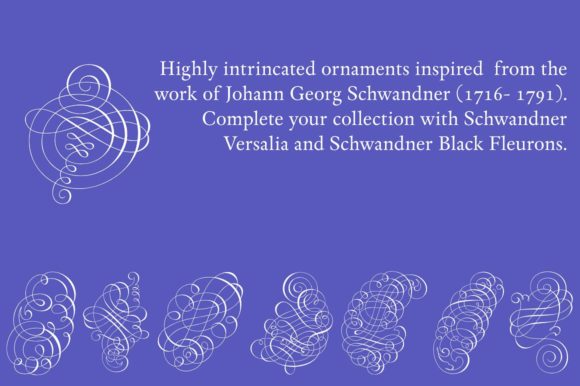
Introduction to Schwandner Ornaments Font Font
Fonts play a crucial role in design, and the Schwandner Ornaments Font font is a typeface that brings both character and versatility to any project. Whether you’re working on a branding project, a website, or a print design, the Schwandner Ornaments Font font offers a unique style that can elevate your work.
The Schwandner Ornaments is a highly intrincated set of ornaments inspired from the work of Johann Georg Schwandner (1716-1791).
An accurate historical revival and interpretation of Iza W, at Intellecta Design State-of-art to use in headings, chapter initials from books, magazines and other publications.
Key Features of Schwandner Ornaments Font Font
Why Choose Schwandner Ornaments Font Font?
The Schwandner Ornaments Font font is more than just a typeface – it’s a design tool that helps you communicate your message with style and clarity. Its unique character set and versatile design make it suitable for a wide range of applications, from elegant invitations to bold headlines.
With its carefully crafted letterforms and balanced proportions, the Schwandner Ornaments Font font ensures readability and visual appeal across all mediums.
What makes Schwandner Ornaments Font font special?
The Schwandner Ornaments Font font stands out with its unique design, exceptional readability, and versatility across various design applications.